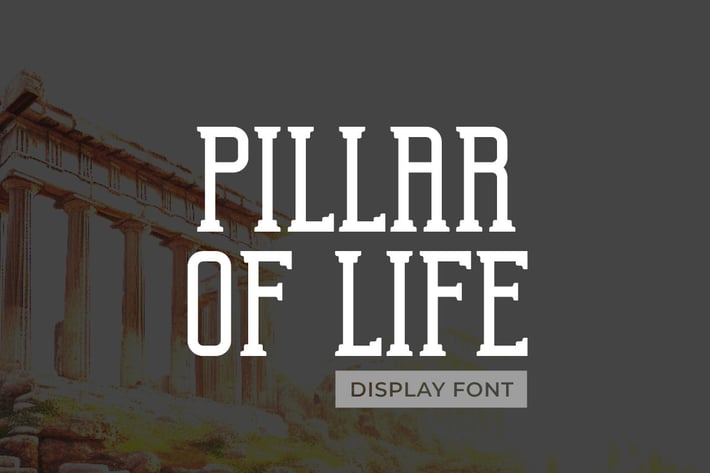
Pillar Of Life - Display Font
Hello! Pillar Of Life is a modern display font.
Pillar Of Life can be used in any works such as comic book, poster, school, flyer, book title, advertisement, social media content, logo and many more.